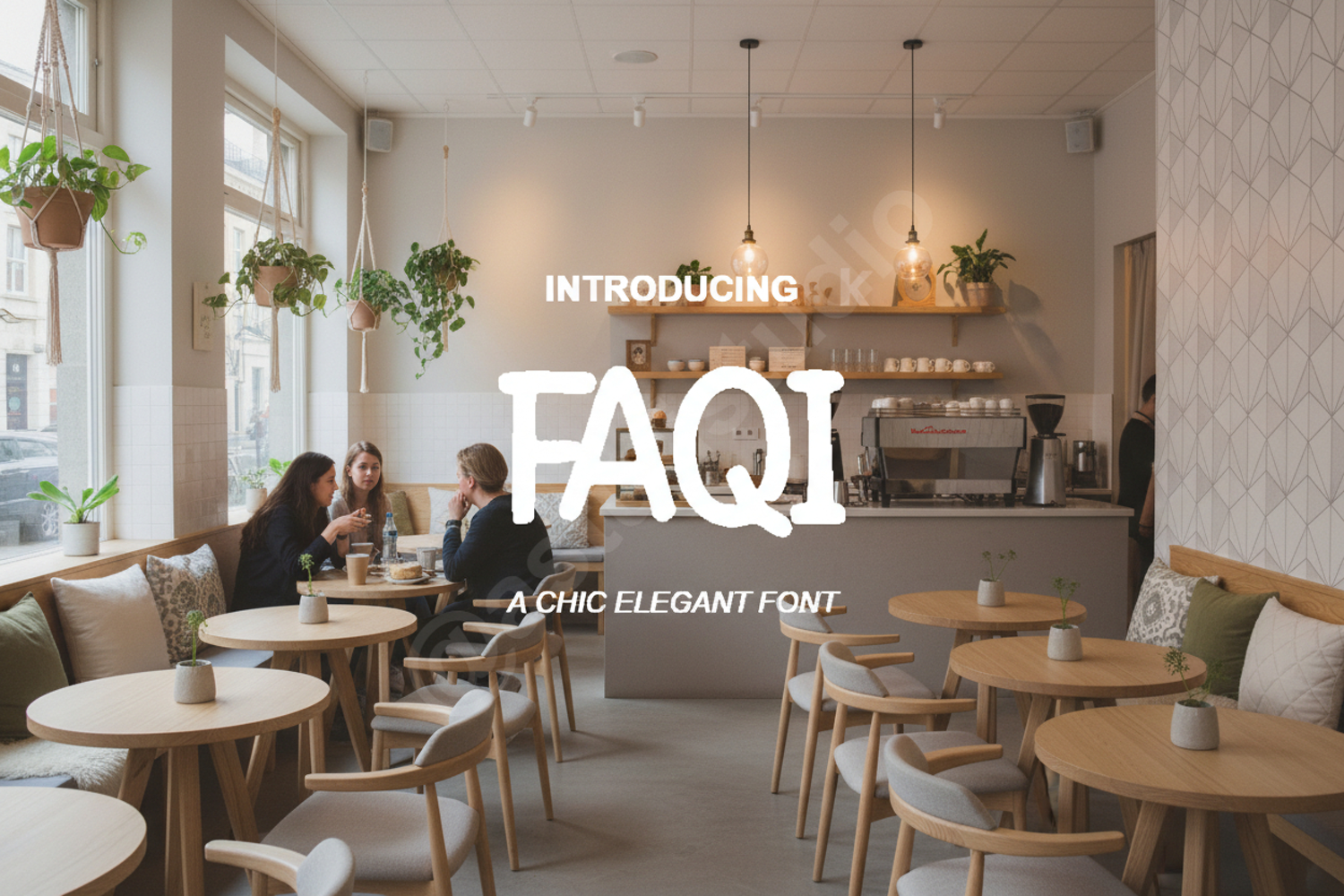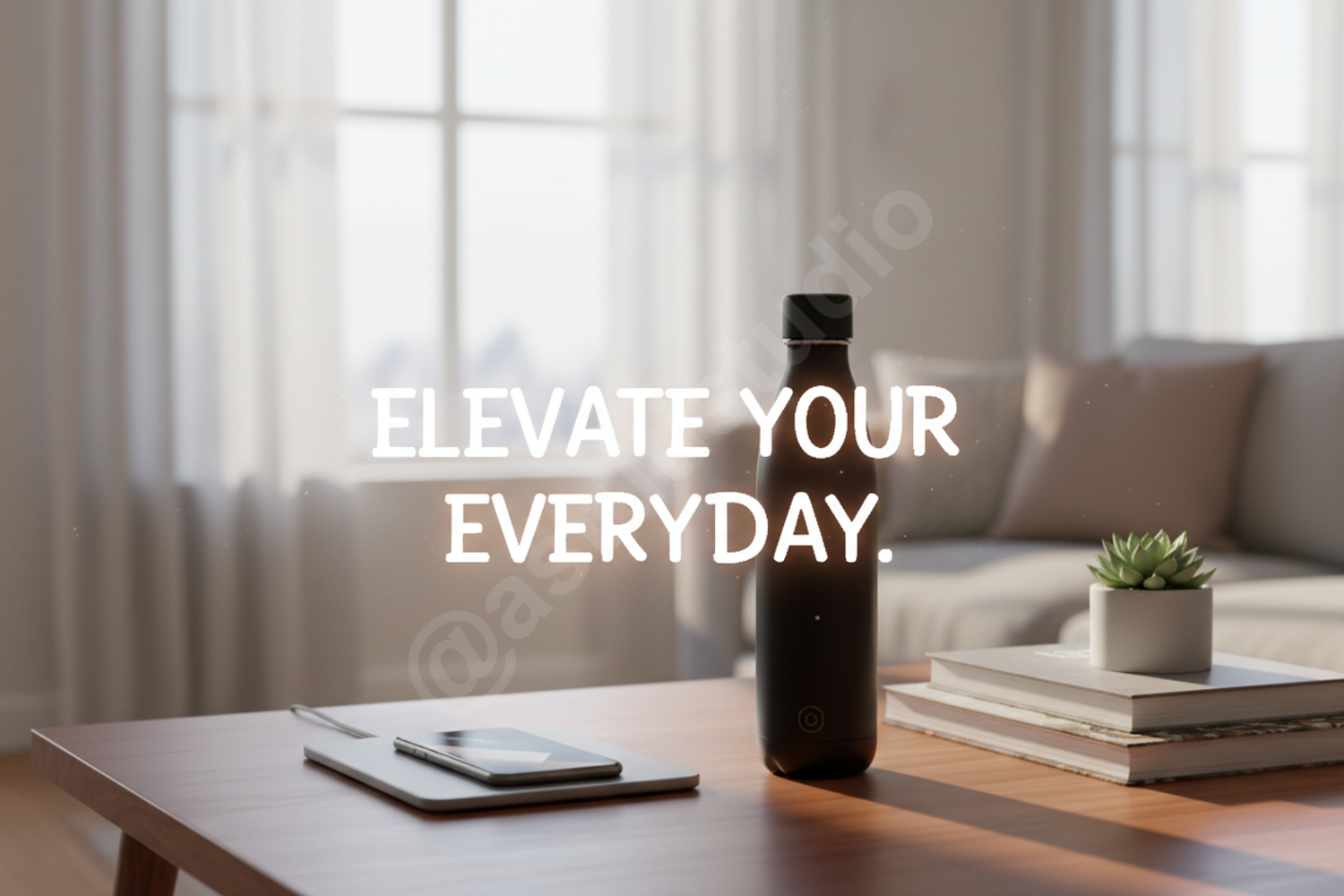
Faqi | Elegant Modern Minimalist Serif
Faqi
Experience the perfect blend of tradition and contemporary design with Faqi. This premium serif font is meticulously crafted to bring a touch of sophistication to your creative projects. With its clean lines and balanced proportions, Faqi offers a timeless aesthetic that ensures your message is delivered with poise and professional flair. Whether you are designing for a luxury brand or a modern editorial layout, Faqi provides the versatility and high-end finish your work deserves.
Faqi is highly versatile and excels in a variety of high-end applications, including:
- Professional Branding and Corporate Identity Design
- Luxury Packaging and Premium Product Labels
- Editorial Layouts and High-Fashion Magazine Headlines
- Elegant Wedding Stationery and Formal Invitations
- Minimalist Social Media Graphics and Aesthetic Quotes
- Sophisticated Website Headers and Digital UI Design